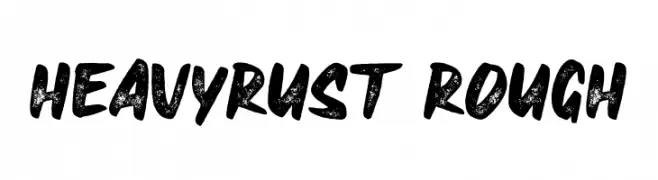
• Heavy Copper 3D
A bold, geometric font with a 3D effect and sharp angles.
• Heavy Copper Gradient
A bold, futuristic font with a striped, geometric design.
• Heavy Copper Condensed
A bold, geometric font with sharp angles and a condensed structure.
• Heavy Copper Italic
A bold, angular, and italicized font with a futuristic style.
• Heavy Copper Leftalic
A bold, angular font with a geometric and modern style.
• Heavy Copper 3D Italic
A bold, angular 3D italic font with a dynamic and impactful style.
• Heavy Copper Halftone Italic
A bold, italicized font with a halftone effect and geometric structure.
• HEAVYRUST ROUGH
A bold, distressed font with a rugged, hand-crafted appearance.
• LT Asus Heavy
A bold, robust font with thick strokes and strong presence.
• LT Asus Heavy Italic
A bold, italic font with dynamic and energetic styling.